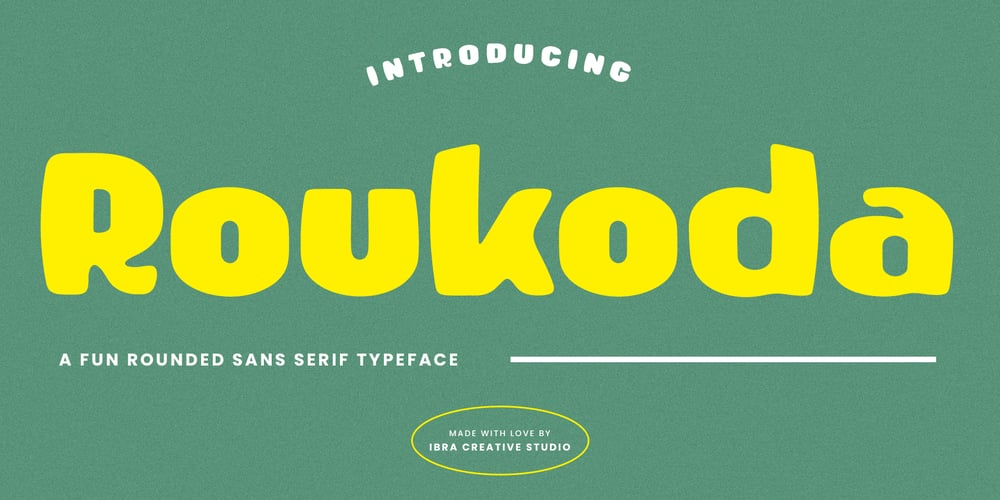
Roukoda
Roukoda font
Roukoda Font Family was designed by Roisatul Azizah and published by IbraCreative. Roukoda contains 1 styles and family package options. Roukoda – A Fun Rounded Sans Serif TypefaceRoukoda, a fun rounded sans-serif typeface, radiates a playful and friendly aura with its charmingly curved letterforms. The delightful roundness of each character adds a touch of whimsy, making Roukoda a perfect choice for designs that seek to convey a sense of approachability and lightheartedness. Its balanced and clean appearance ensures readability, while the subtle round edges infuse a sense of warmth and character. Whether used in branding, playful headlines, or creative projects, Roukoda invites designers to infuse their work with a dose of joy and youthful energy, turning every design endeavor into a delightful visual experience. Roukoda is perfect for branding projects, logo, wedding designs, social media posts, advertisements, product packaging, product designs, label, photography, watermark, invitation, stationery, game, fashion and any projects.Fonts include multilingual support for; Afrikaans, Albanian, Czech, Danish, Dutch, English, Estonian, Finnish, French, German, Hungarian, Italian, Latvian, Lithuanian, Norwegian, Polish, Portuguese, Slovak, Slovenian, Spanish, Swedish.